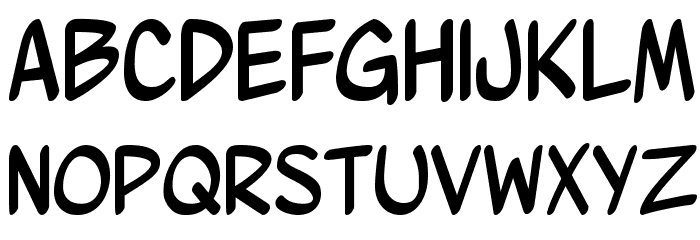
Wurmics Bravura Font
This playful and bold font exudes a sense of fun and creativity. The rounded and slightly irregular shapes of the letters give it a handwritten feel, making it approachable and friendly. The uppercase and lowercase letters maintain a consistent style, with smooth curves and a slightly exaggerated width that enhances its casual appearance. The numerals and special characters are equally expressive, contributing to the font's overall whimsical nature. Its unique style makes it suitable for projects that aim to convey a sense of joy and informality.
A playful, bold font with a handwritten, whimsical style.
- Proposed Projects: Ideal for children's books, playful branding, greeting cards, and informal invitations.
- Width: Expanded
- Overall Style: Playful
- Use Case: Headlines, Logos, Informal Text